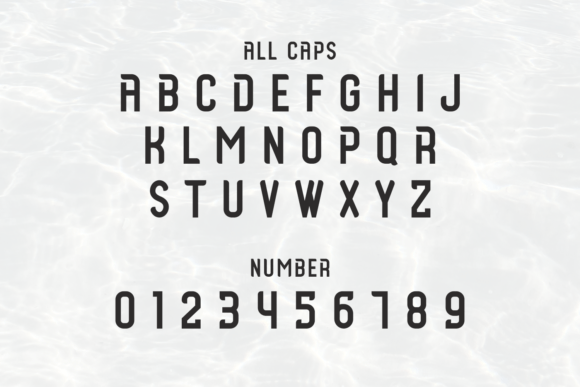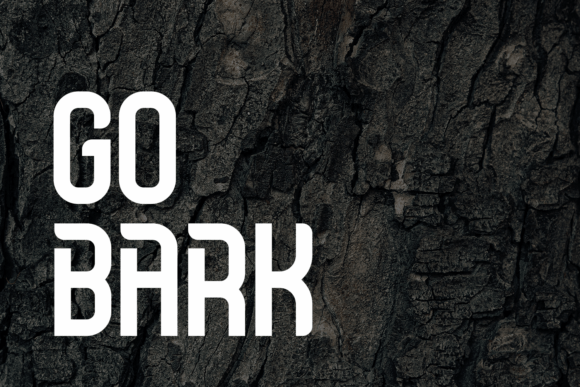
Cabikan Font: Elevate Your Designs with a Cool and Modern Sans Serif
In the world of design, typography plays a crucial role in conveying messages, evoking emotions, and creating lasting impressions. For designers and crafters seeking a font that embodies modernity, minimalism, and versatility, look no further than Cabikan. This cool and modern sans serif font is poised to revolutionize your design projects, from book covers and magazines to social media posts and invitations.
The Essence of Cabikan Font
Cabikan is more than just a font; it’s a design statement. Its core characteristics are rooted in minimalism and cleanliness, making it an ideal choice for designers who appreciate simplicity and elegance. The sans serif design ensures that your text remains clear and legible across various platforms and sizes, from the smallest social media icon to the largest billboard.
One of the standout features of Cabikan is its incredible versatility. This font can seamlessly integrate into a wide array of design projects, including:
- Book Covers: Give your novel or non-fiction book a modern edge that captures the essence of your story.
- Magazines: Use Cabikan for headings, subheadings, or even body text to give your publication a sleek, contemporary look.
- Social Media Posts: Stand out in a crowded feed with Cabikan’s clean and modern aesthetic.
- Invitations: Whether it’s a wedding, birthday, or corporate event, Cabikan adds a touch of sophistication and modernity.
Why Choose Cabikan?
There are several reasons why Cabikan should be your go-to font for your next design project:
- Legibility: Its sans serif nature ensures that your message is conveyed clearly, regardless of the context.
- Modern Appeal: Cabikan’s design is tailored for the modern audience, making your designs instantly more relatable and engaging.
- Flexibility: It works well with both digital and print media, offering you the flexibility to use it across different mediums.
- Easy to Pair: Cabikan can be easily paired with other fonts to create a unique and harmonious design.
Tips for Using Cabikan Effectively
To maximize the impact of Cabikan in your designs, consider the following tips:
- Experiment with Sizes: Play with different font sizes to create a visual hierarchy that guides the viewer’s eye.
- Color Matters: Choose colors that complement Cabikan’s modern vibe. Monochromatic schemes or bold contrasts work particularly well.
- Don’t Forget About Spacing: Ensure that your text is easily readable by paying attention to kerning and line spacing.
Cabikan font offers a unique blend of modernity, minimalism, and versatility, making it an excellent choice for designers and crafters looking to elevate their projects. Whether you’re working on a book cover, magazine, social media post, or invitation, Cabikan can help you create designs that are not only visually appealing but also effectively communicative. Embrace the power of Cabikan and take your designs to the next level.
In conclusion, Cabikan is more than just a font; it’s a tool that can transform your designs, making them more engaging, modern, and effective. With its clean lines, versatile application, and contemporary feel, Cabikan is poised to become an indispensable part of your design toolkit.